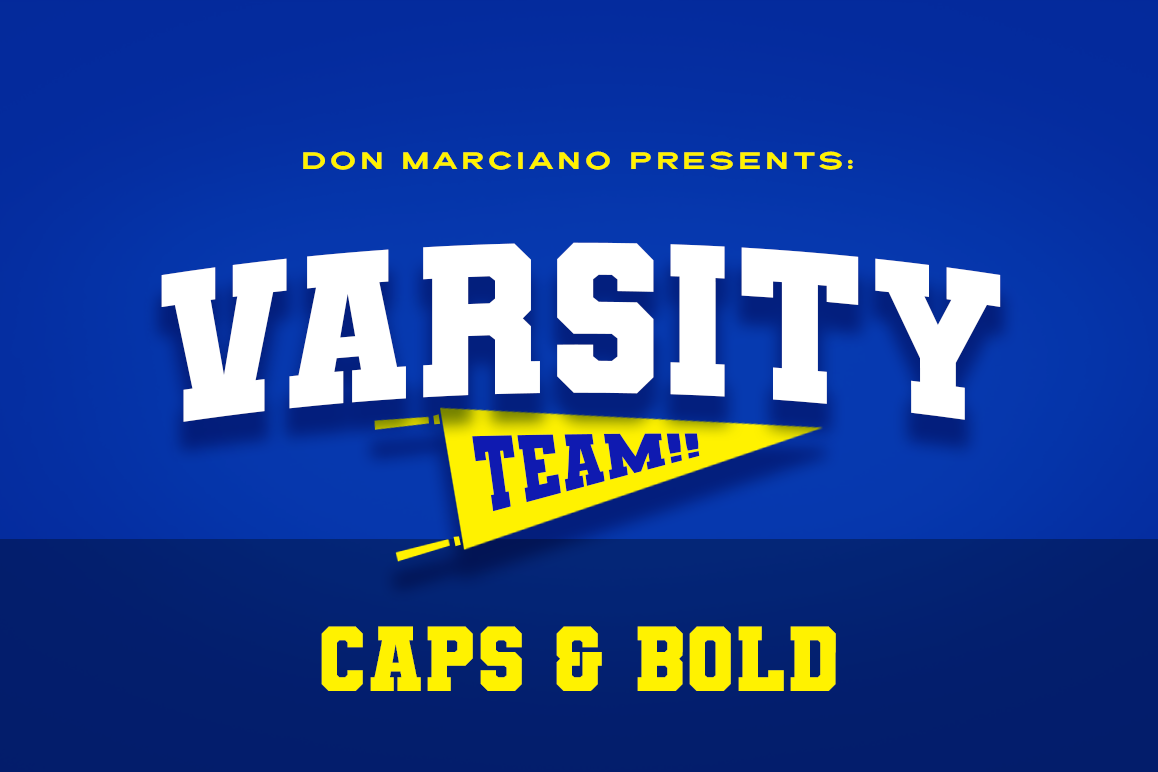
Varsity Team Sports Font
Varsity Team
is inspired by that school pride spirit, created for a 20 years class reunion t-shirt, I draw my inspirations from the bold and blocky memories that I have from school, with straight and clean lines, with bold heads and clunky feet, comes a typeface that captures the never ending feeling of the school life, with the never ending yearning of wanting to relive those years again. A .OTF files format with a total count of 284 glyphs, an all caps font with no variants that includes, all numbers and punctuation. Enjoy!